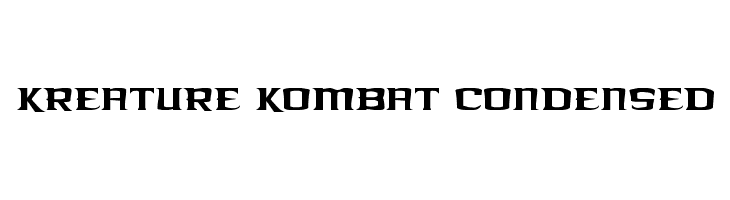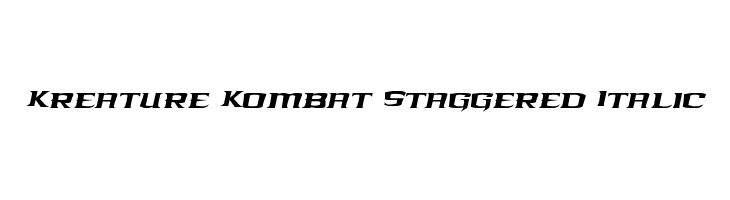
A bold, italic font with sharp, angular edges and a dynamic style.
A bold, staggered, and italicized font with an aggressive, dynamic style.
A bold, angular font with a warped, dynamic style.
A bold, italicized font with a dynamic and warped style.
A bold, condensed, and italic font with sharp, angular edges and a dynamic style.
A bold, three-dimensional font with geometric precision and a modern aesthetic.
A bold, three-dimensional font with a modern, geometric style.
A bold, geometric font with a modern and industrial aesthetic.
A modern, geometric font with sharp angles and a technical appearance.
A modern, stencil-like font with bold, angular lines and high contrast.